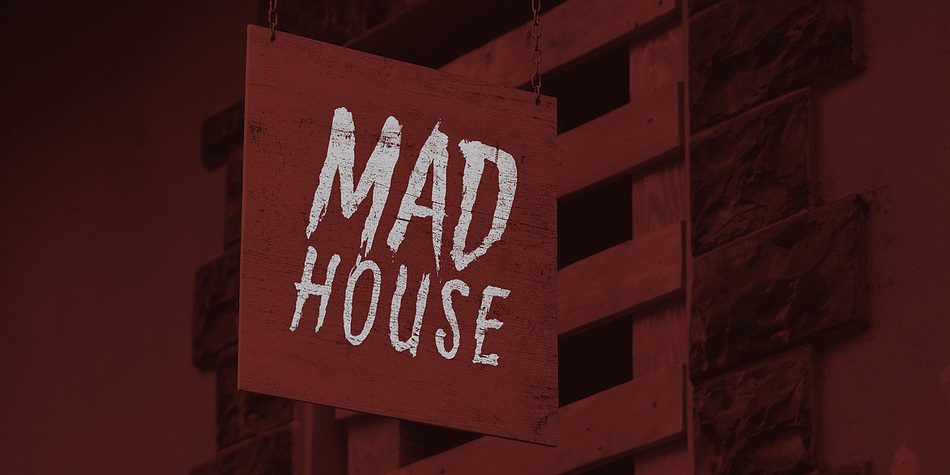
Gory Madness
Designed by Mirco Zuchowski, Gory Madness is a brush display, grunge and dingbat font family. This typeface has three styles and was published by Mirco Zett.
Gory Madness is a horror genre font, inspired by vintage movie posters from the 70s.
Made for logos, headlines, advertising and apparel design
Styles Brush Display, Grunge, Dingbat